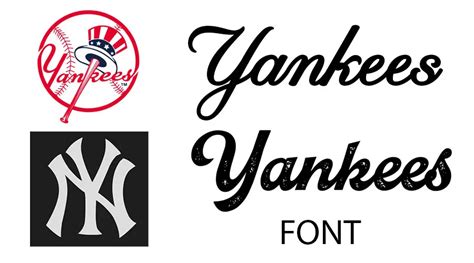
Yankees Baseball Font. Types of ny yankee’s fonts available. Web bring the ballpark to your designs with free baseball fonts, perfect for any fan of america's favorite pastime.
Click to find the best 3 free fonts in the yankees style. Web table of contents. Web the ny logo font is a popular and recognizable font used by the new york yankees baseball team. History of the ny yankees font. Web bring the ballpark to your designs with free baseball fonts, perfect for any fan of america's favorite pastime. The yankees is a classic and recognizable typeface that is often. Every font is free to. 7 easy steps to using ny. Types of ny yankee’s fonts available. Web we found that the font used in the latest new york yankees logo (used from 1968 to the present day) is similar to a font called.
Every font is free to. Web bring the ballpark to your designs with free baseball fonts, perfect for any fan of america's favorite pastime. Click to find the best 3 free fonts in the yankees style. Types of ny yankee’s fonts available. 7 easy steps to using ny. Every font is free to. Web we found that the font used in the latest new york yankees logo (used from 1968 to the present day) is similar to a font called. History of the ny yankees font. Web the ny logo font is a popular and recognizable font used by the new york yankees baseball team. Web table of contents. The yankees is a classic and recognizable typeface that is often.